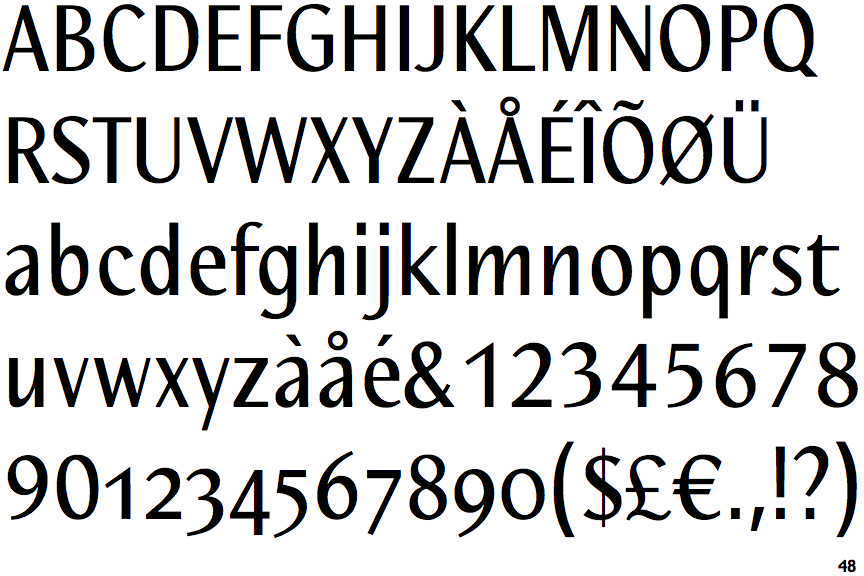
Nautilus Text Font is perfect for marine research publications, submarine technology materials, deep-sea exploration reports, nautical engineering documents, oceanographic study layouts, maritime archaeology publications, spiral shell collections, underwater photography credits, marine biology textbooks, and elegantly spiraling marketing communications.
Nautilus Text Font is exciting because it embodies the mathematical perfection and natural elegance of the nautilus shell with its precisely spiraling letterforms that follow the golden ratio found in nature's most beautiful creations and reflect the sophisticated engineering that allows these ancient creatures to navigate ocean depths with effortless grace. Its scientifically inspired character design reflects both the geometric precision of natural mathematics and the fluid adaptability that makes nautilus shells perfect examples of form following function, making it perfect for brands celebrating natural design and scientific elegance.
Nautilus Text Font family includes thin, light, regular, medium, bold, and black weights, each with corresponding italic versions. The font family also features marine ornaments, spiral ligatures, nautical symbols, and ocean decorative elements that enhance its natural aesthetic and scientific versatility.
This naturally elegant typeface represents the perfect fusion of scientific precision and organic beauty. Nautilus Text Font Free Download allows designers to explore its spiral possibilities before making a commercial commitment. The font's ability to convey both mathematical accuracy and natural grace makes it ideal for scientific institutions, marine organizations, and educational brands targeting audiences fascinated by natural mathematics and oceanic exploration.
Whether you're developing marine research identities, creating scientific publication materials, or designing ocean-focused communications, Nautilus Text Font brings an unmistakable sense of natural elegance and scientific precision to every project. Its spiraling character and marine heritage create powerful connections that resonate with researchers and audiences appreciating natural design and scientific discovery.
The font's versatility excels in scientific and educational environments where precision and natural beauty are equally valued. Its mathematical character makes it particularly effective for research institutions, marine organizations, educational publishers, and scientific companies seeking to establish authoritative relationships with academics and audiences passionate about natural science and oceanic exploration.
For designers working on projects requiring genuine scientific elegance and marine appeal, Nautilus Text Font provides an exceptional solution. Its naturally precise presence and comprehensive marine-themed elements offer the tools needed for creating truly scientific communications, while its spiral perfection ensures your designs capture the mathematical beauty and natural elegance that defines the most sophisticated natural engineering and oceanic research excellence.